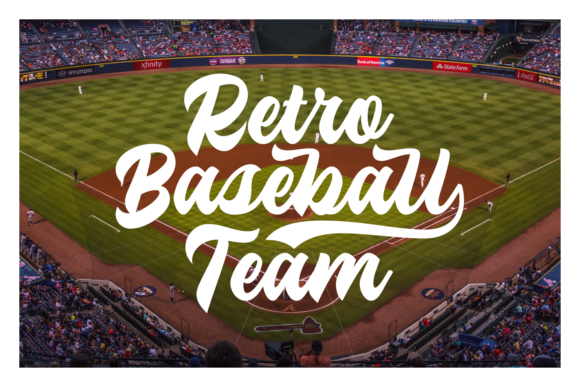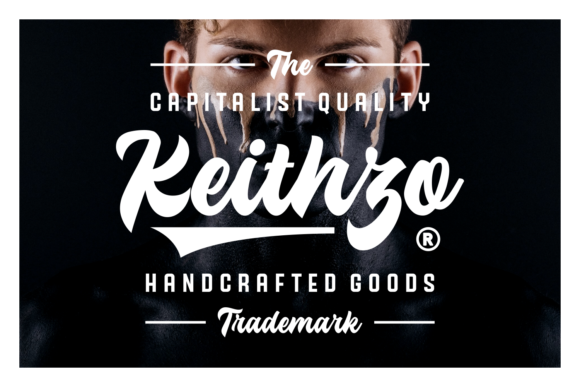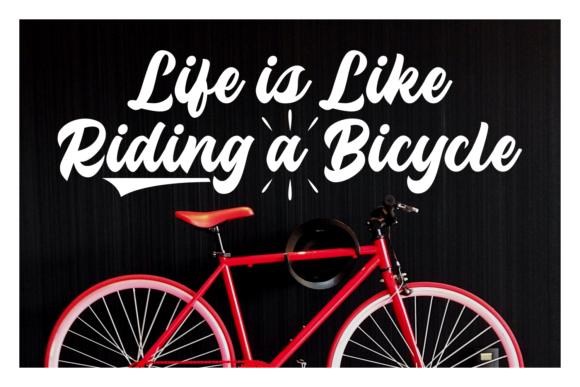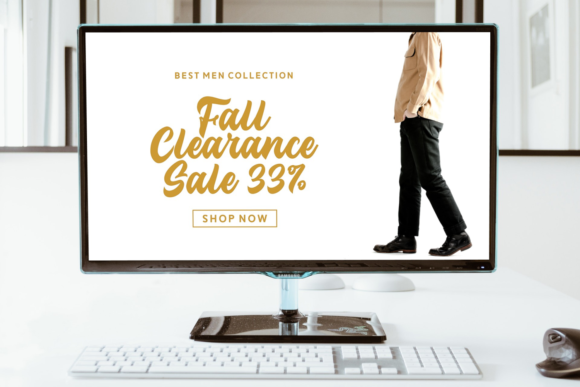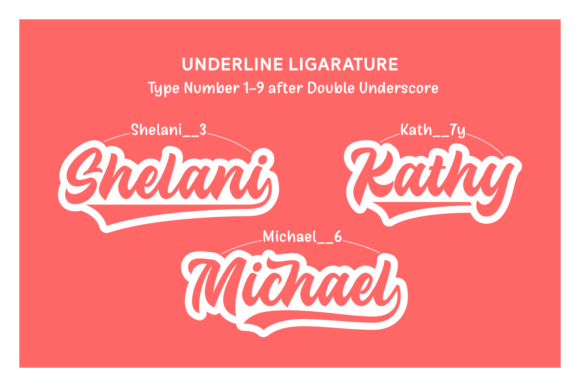
Troche Font
About Troche Font
The Troche is a strong script. It has bold letters with a good readability which makes it perfect for any design that needs an unique, striking typeface.